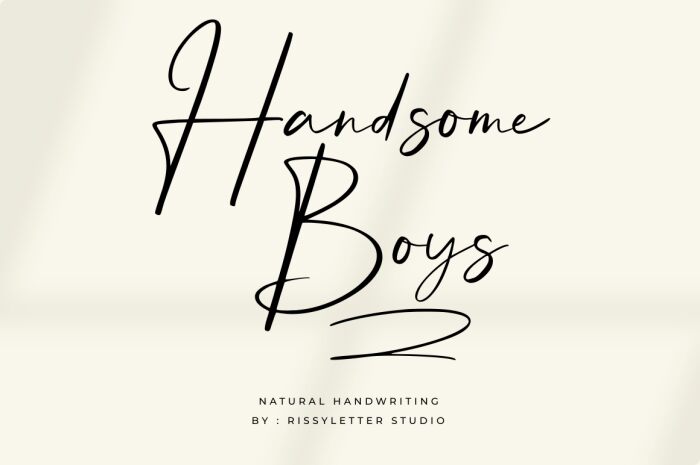
Handsome Boys
The Handsome Boys font, crafted by the talented team at Rissyletter Studio, exudes a captivating, handwritten charm. With its delicate strokes and playful flourishes, this light-weight font radiates a sense of effortless elegance. The organic flow of the letterforms and the subtle variations in line thickness contribute to a unique, personalized aesthetic that evokes a warm, inviting ambiance.
Handsome Boys' versatility shines through its ability to seamlessly transition between various design applications. From elegant stationery and wedding invitations to charming branding and editorial layouts, this font's refined yet casual nature lends itself to a wide range of creative projects. Its distinctive character and adaptability make Handsome Boys a compelling choice for designers seeking to infuse their work with a touch of refined sophistication.